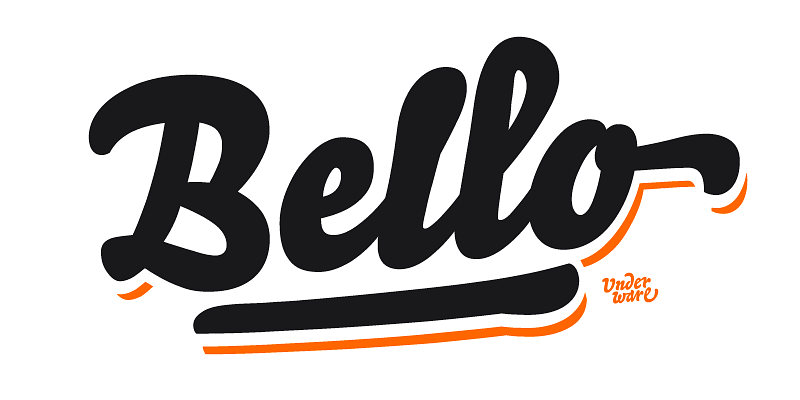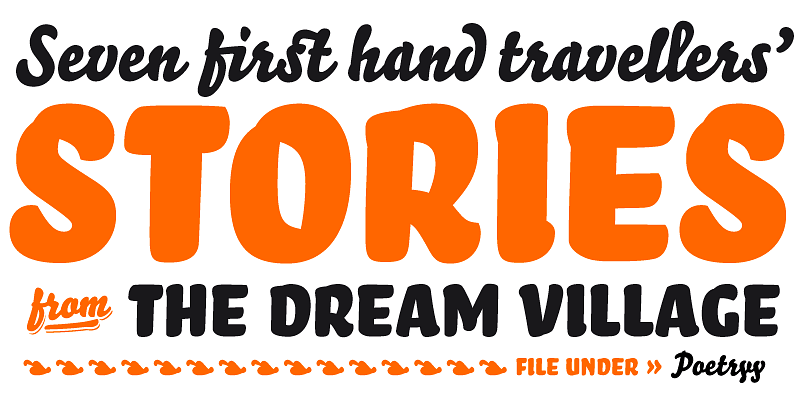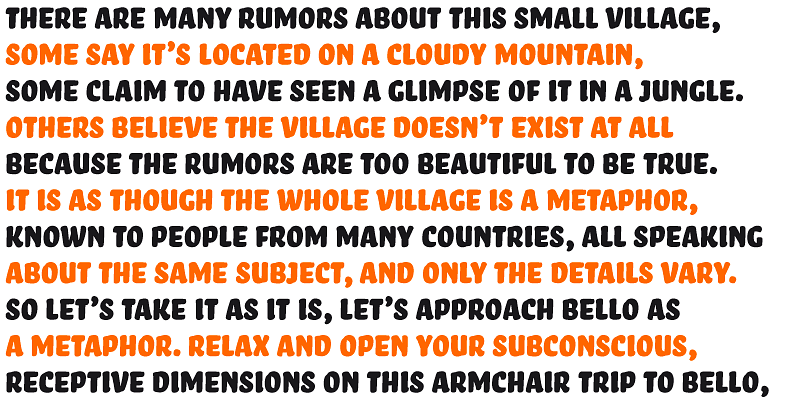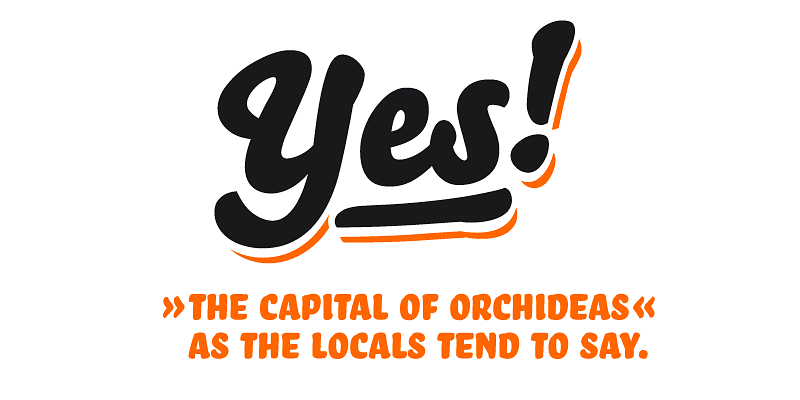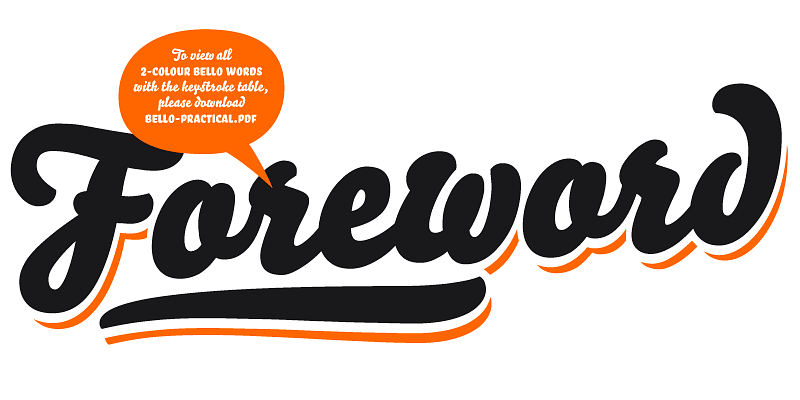
Bello is a brush typeface for headline point sizes - it’s big & beautiful! Bello comes in 2 different styles: script & all caps. A contemporary feel good typeface.